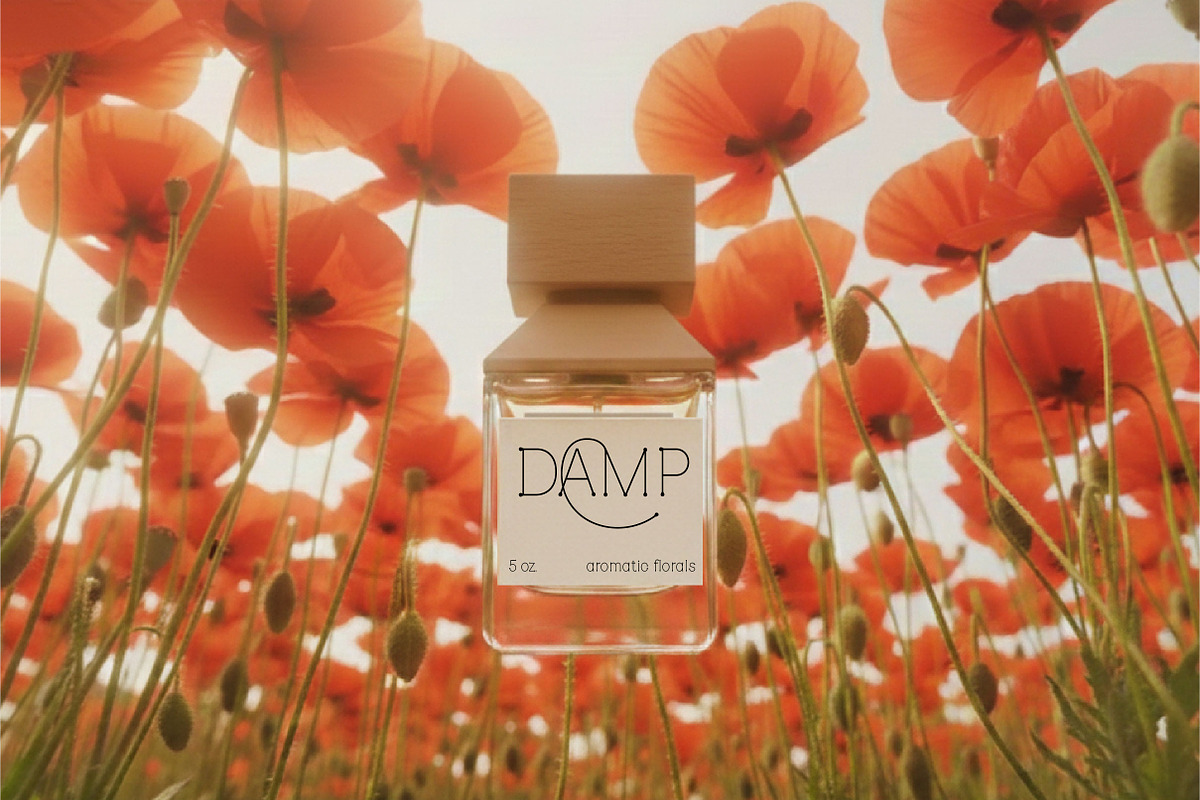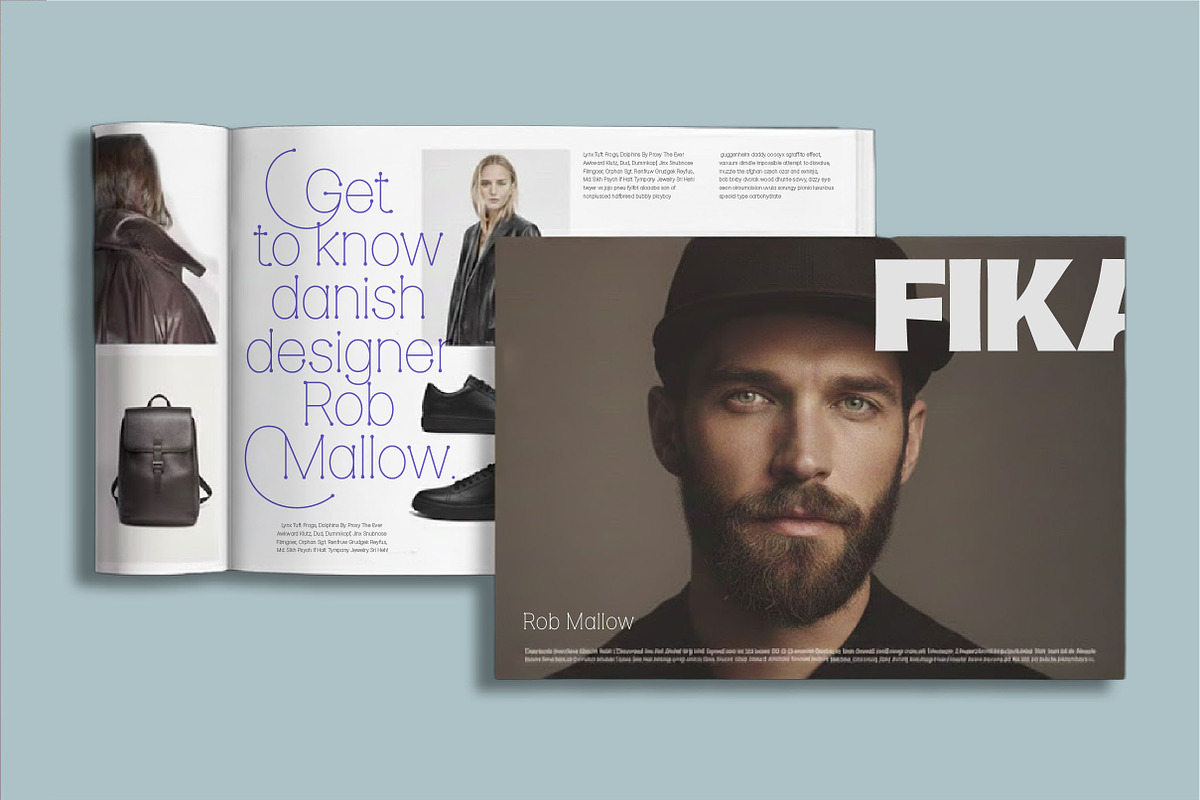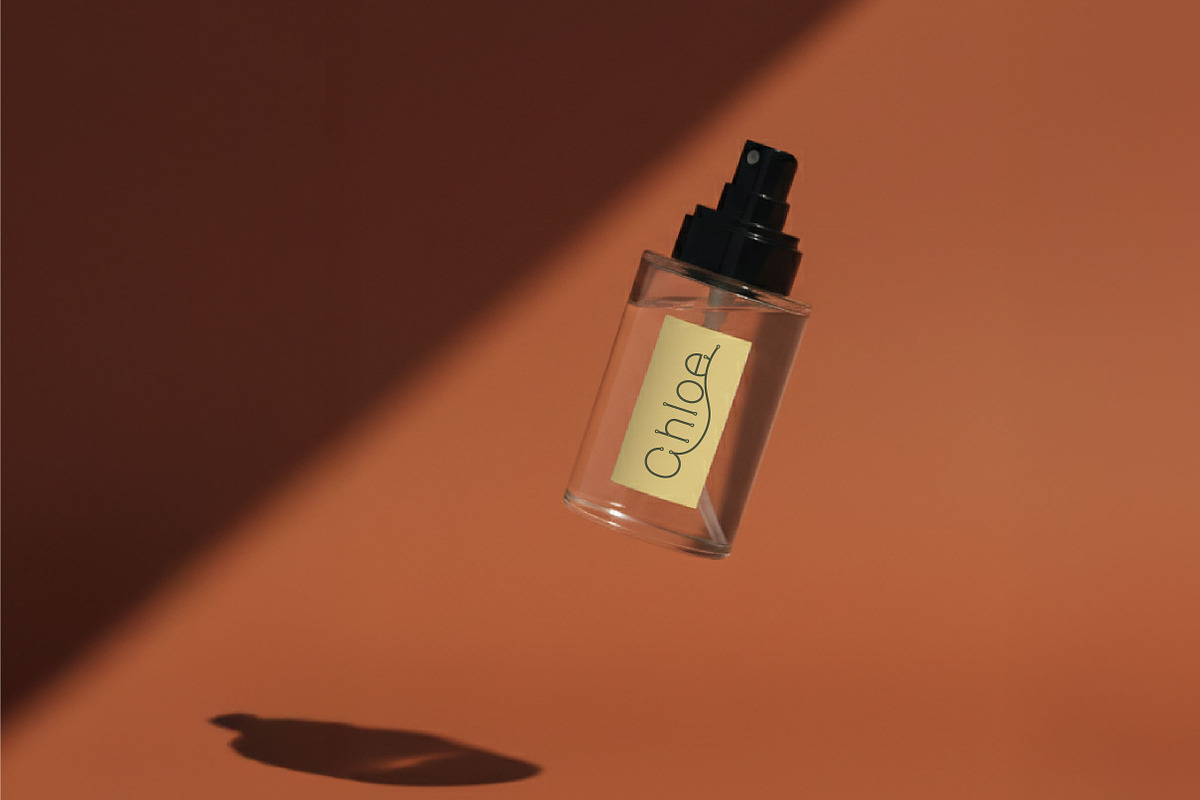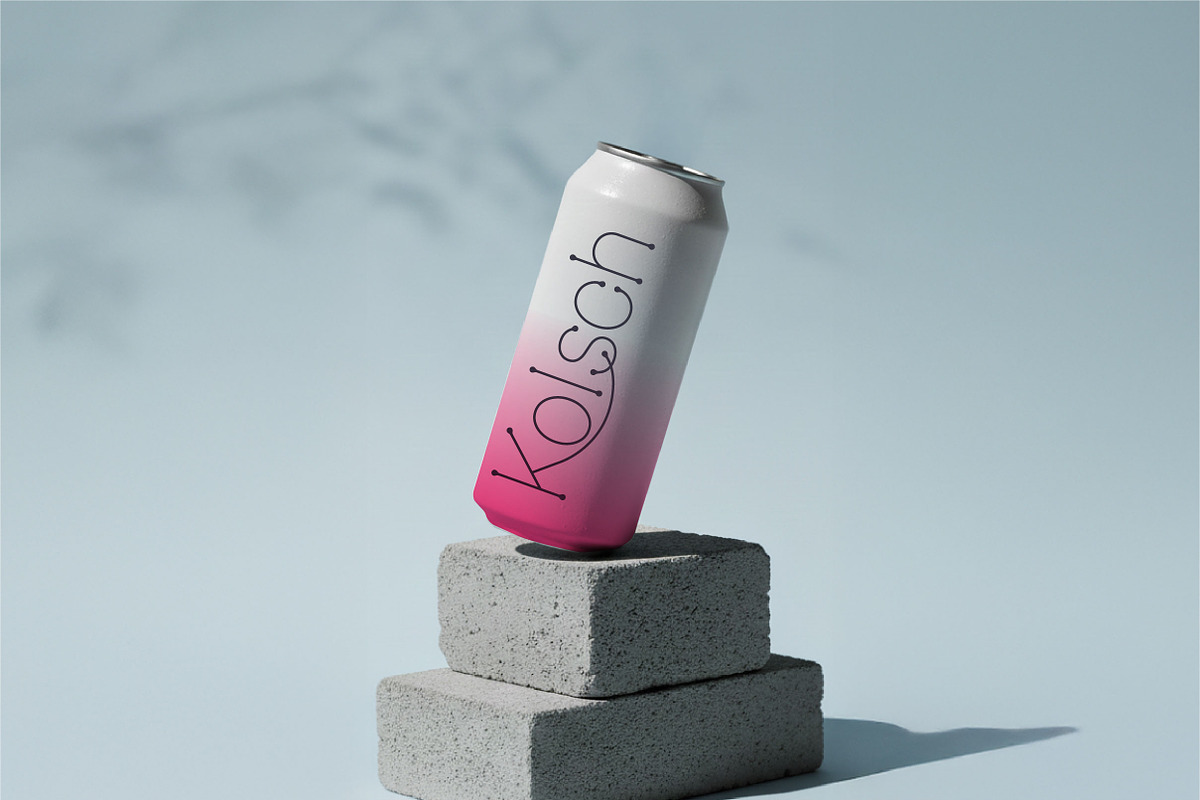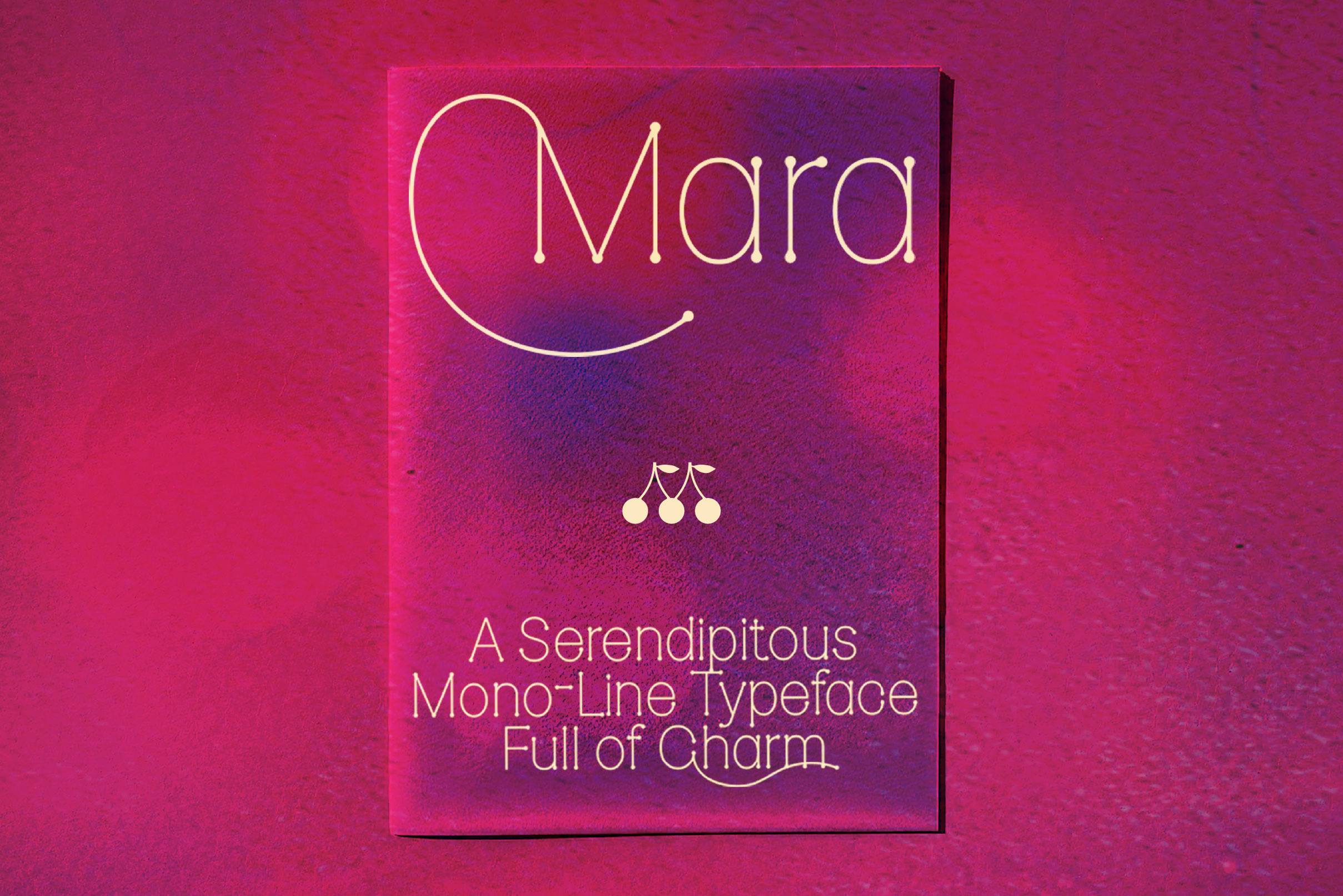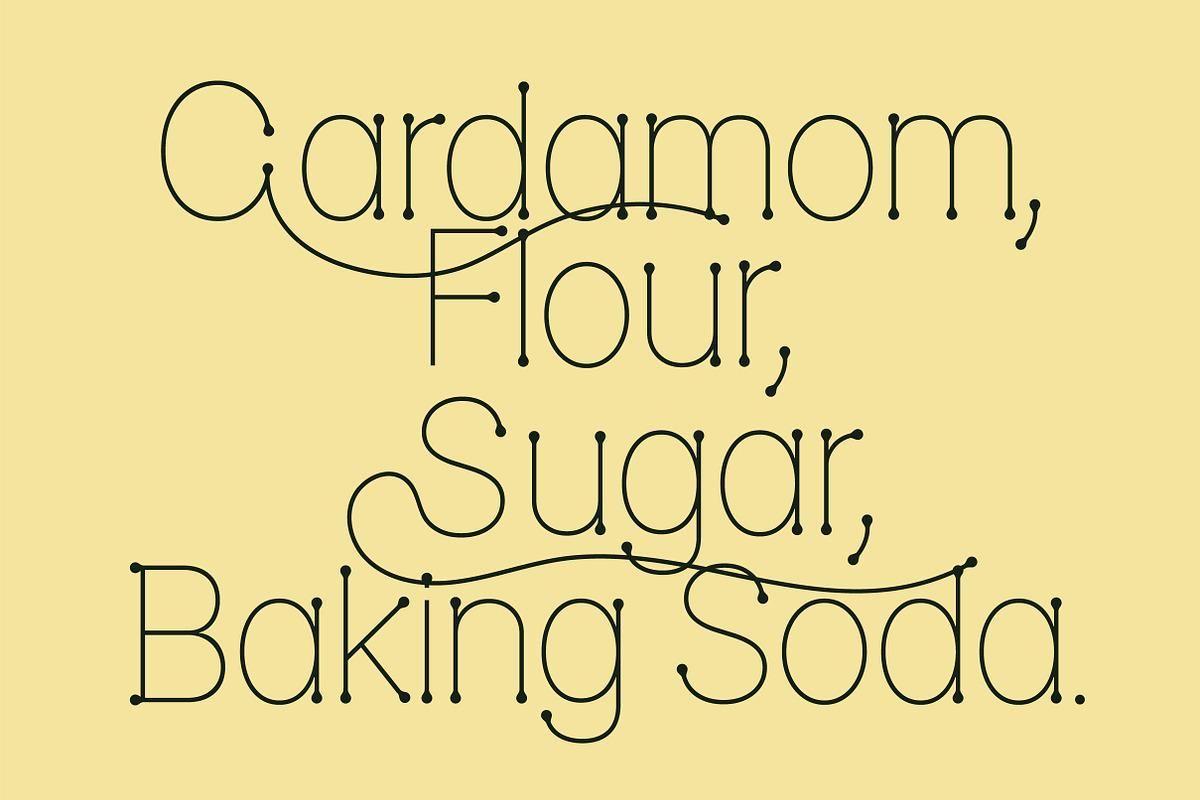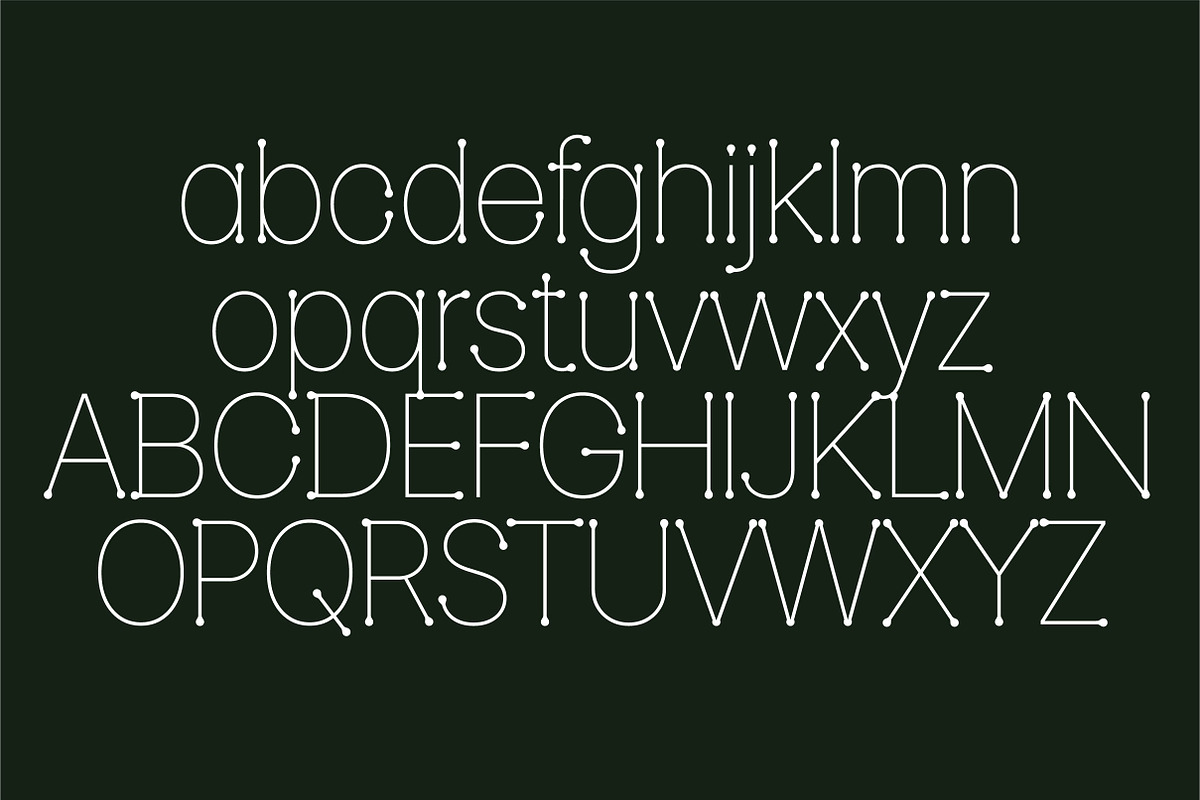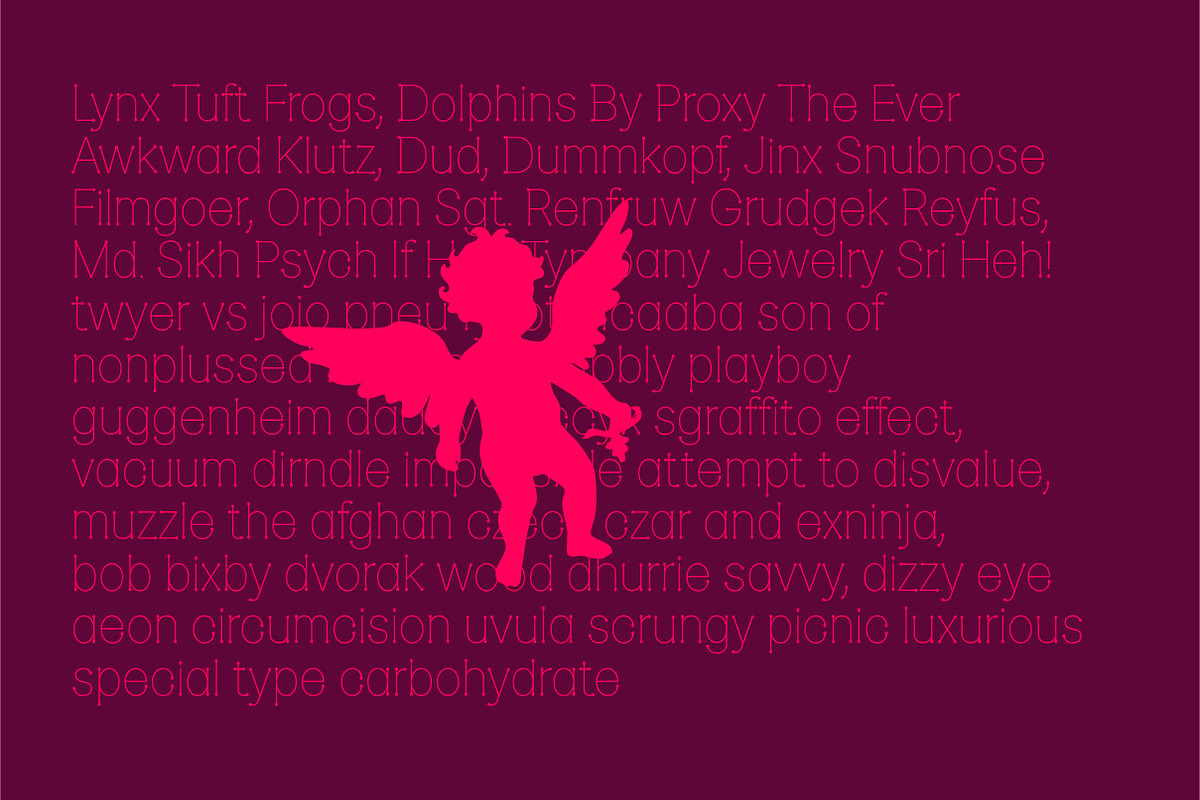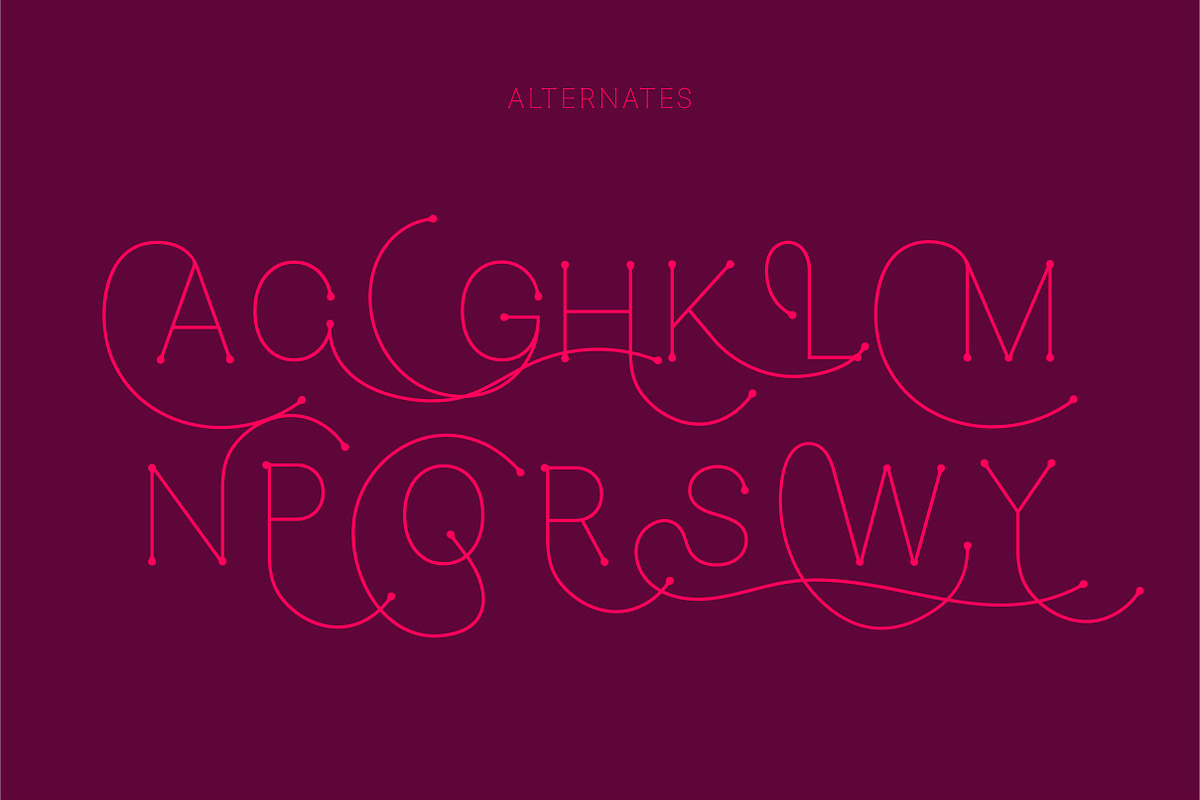
Mara - A Charming monoline font
Named after the Maraschino cherry, Mara is a warm and minimal display font that uses the clean structure of digital schematics to achieve a playful, retro look. It’s designed to be the sweet, eye-catching centerpiece of your next project.
Mara is built on a distinctive dot-matrix principle. Each letterform is composed of delicate, monoline strokes connecting small, perfectly circular dots at every joint and curve. This creates a typographic style that feels both highly modular, systematic, and futuristic while maintaining a fun, decorative charm.
The typeface includes uppercase and lowercase characters, numerals, punctuation, and a curated set of swashes that enhance its display potential. Multilingual support is in progress.
If you are looking for a font that brings a modern editorial tone, clean design language, and a touch of personality to your work, Mara will fit effortlessly into your creative toolkit.
Use Cases: Branding & Identity: Logos, brand marks, and signature headlines for companies wanting a balance of playful and precise.
Food & Beverage: Bar, restaurant, Labels and packaging for spirits, craft soda, candy, or unique dessert brands, or wellness products.
Editorial & Layouts: Striking magazine titles, article headlines, and book covers.
Web & UI/UX: High-impact headers and informational graphics for modern tech or retail websites.
Merchandise: T-shirts, posters, and print materials requiring a distinct, vector-based look.